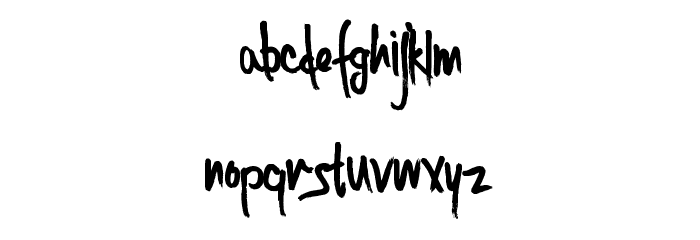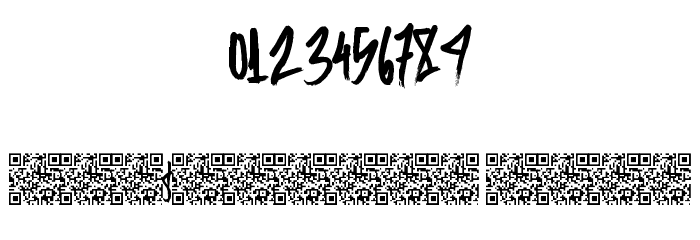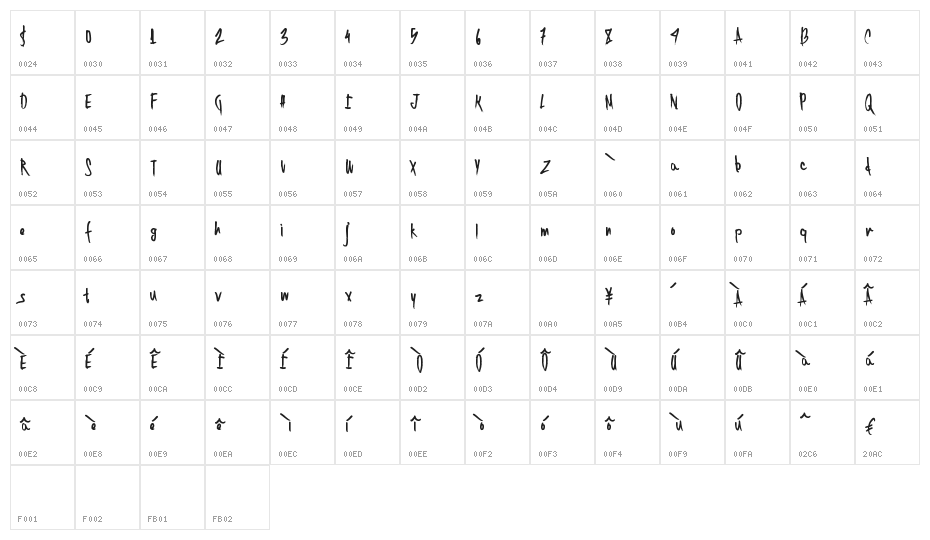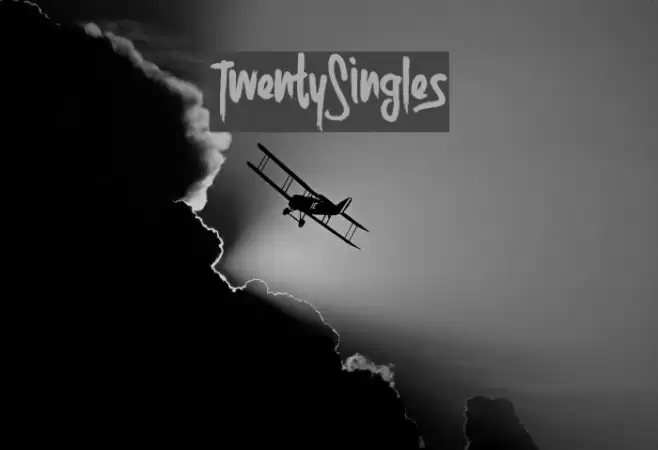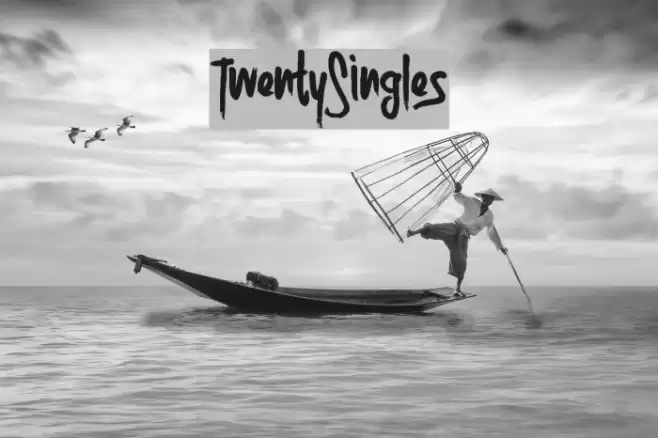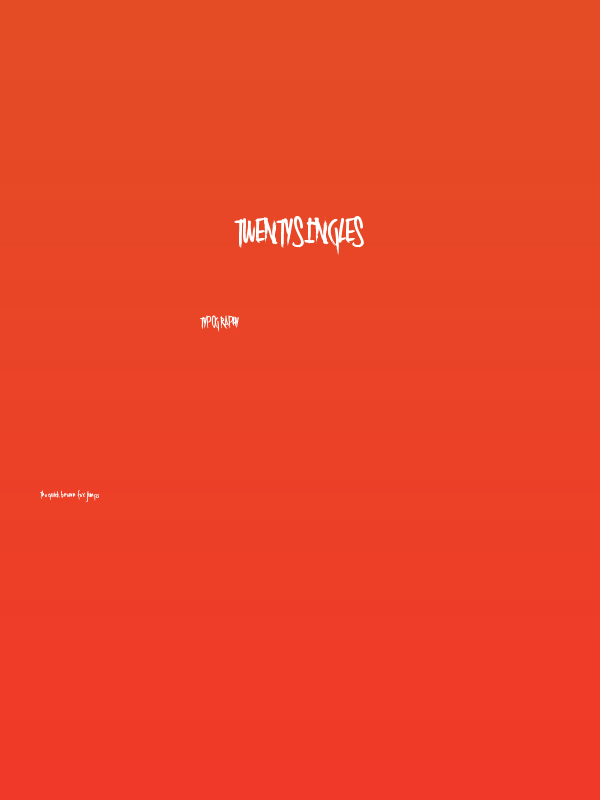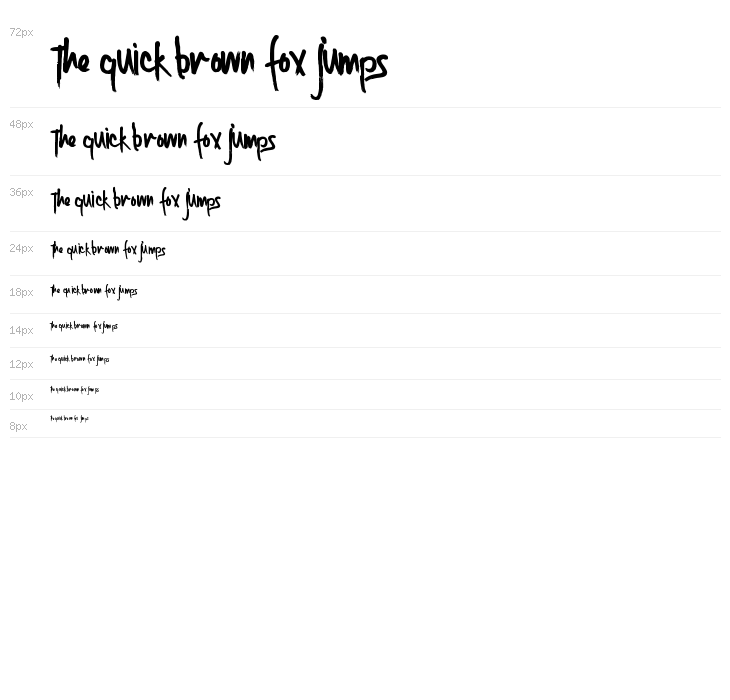
TwentySingles Font
This font features a bold and expressive style, characterized by its brush-like strokes and dynamic, energetic appearance. The uppercase letters are tall and slightly irregular, giving a sense of movement and spontaneity. The lowercase letters maintain a consistent style, with some characters extending below the baseline, adding to the font's lively nature. Numbers and special characters follow the same aesthetic, ensuring a cohesive look across all elements. The overall design is reminiscent of street art or graffiti, making it ideal for projects that require a bold and artistic touch.
A bold, brush-style font with an energetic and artistic flair.
- Proposed Projects: Perfect for album covers, posters, streetwear branding, and any project needing a bold, artistic touch.
- Overall Style: Modern, Artistic